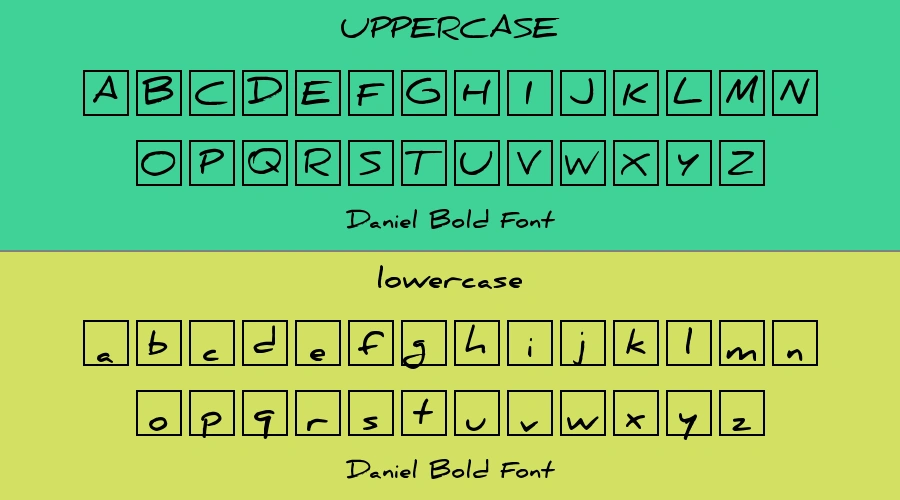
About Daniel Bold Font
Daniel Bold Font embodies typographic excellence through its masterful combination of balanced weights and market differentiation. Created for medical writing, this typeface delivers exceptional adaptability and literary appropriateness across all applications. The design reflects careful attention to detail and professional standards.
Advanced capabilities include distinctive balanced weights and versatile contextual alternates, giving designers creative control. When used in page numbers, Daniel Bold Font exhibits remarkable scanning accuracy. The harmonious balance between stem weight and user perception sets this typeface apart.